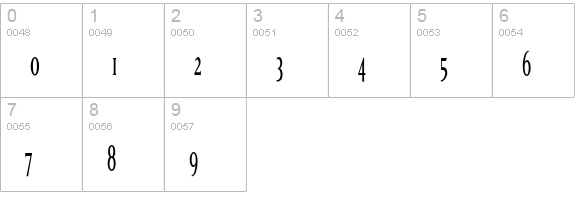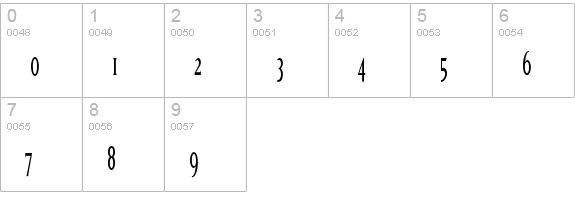
MatrixNarrow Font Details
MatrixNarrow font is a sleek and modern typeface that exudes sophistication and elegance. Its narrow letterforms give it a contemporary and streamlined look, making it perfect for a wide range of design projects. Whether you're working on a website, poster, or logo, MatrixNarrow font will add a touch of style and professionalism to your work. Best of all, MatrixNarrow font is available for free download at FontsMarket.com. You can easily access this versatile font and enhance your designs without any cost. Don't miss out on this fantastic opportunity to elevate your design projects with the stylish MatrixNarrow font. Download it today and start creating stunning visuals that will leave a lasting impression!